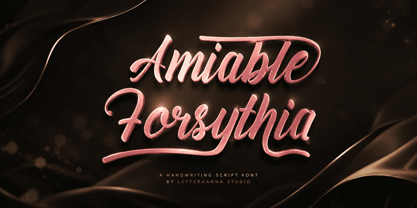
Amiable Forsythia
by Letterhanna Studio
The Amiable Forsythia Font Family was designed by Rinaldo Hasibuan and published by Letterhanna Studio. Amiable Forsythia contains 1 styles. More about this family
Amiable Forsythia Script Font – a new modern, clean & fresh script with a lot of swashes and stylistic alternate, make this font looks elegant, natural, stylish and perfect for any awesome projects
Designers: Rinaldo Hasibuan
Foundry: Letterhanna Studio